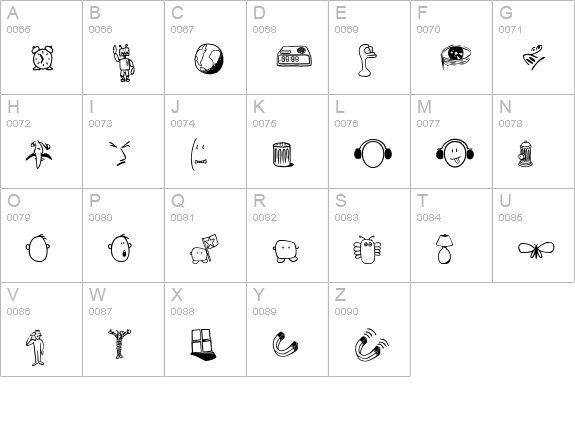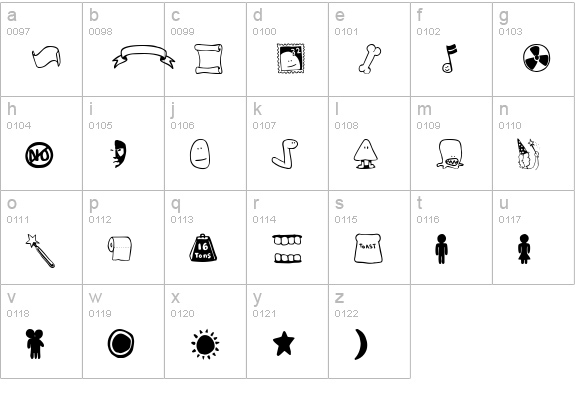
Tombats Three font is a mesmerizing display font that exudes a unique blend of playfulness and elegance. Its distinct, hand-drawn style is perfect for adding a touch of whimsy to any design project. With its intricate details and captivating curves, Tombats Three font is sure to grab attention and make a lasting impression. Each letter is carefully crafted to showcase a delightful fusion of sophistication and creativity. What makes this font even more appealing is that it is available for free! Yes, you read that right - Tombats Three font can be freely downloaded at FontsMarket.com. This means that you can add this stunning font to your collection without spending a dime. Whether you're working on branding, packaging, invitations, or any other creative endeavor, Tombats Three font will effortlessly elevate your design to new heights. Its versatility allows it to shine in various contexts, from bold headlines to delicate typography. So, why wait? Embrace the beauty of Tombats Three font and let your imagination run wild. Download it for free at FontsMarket.com and unlock a world of creative possibilities.